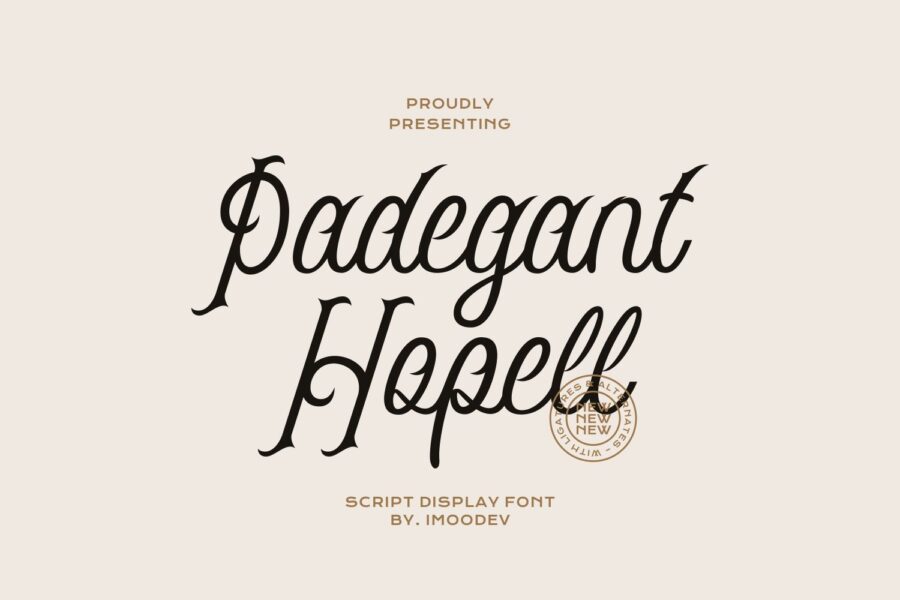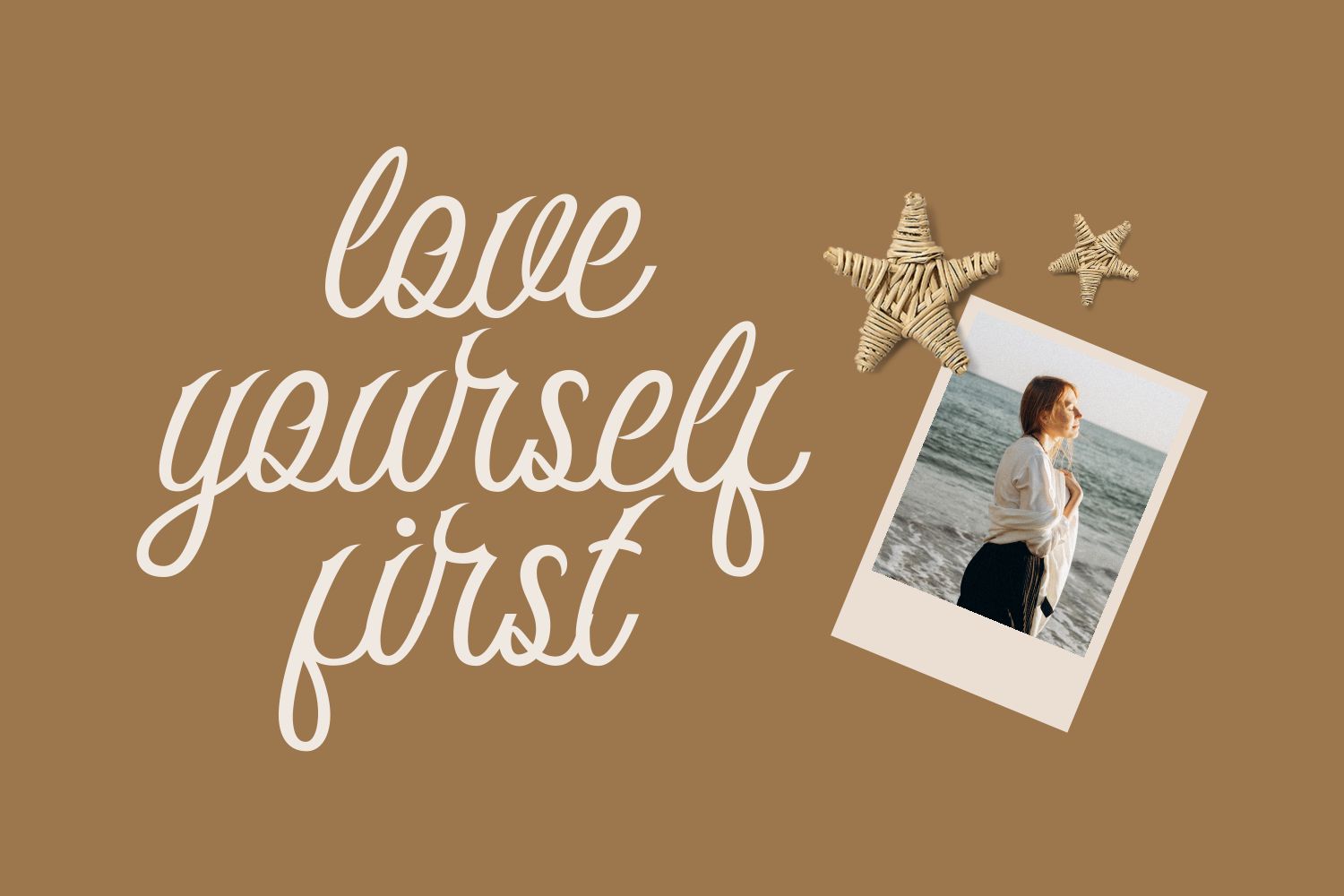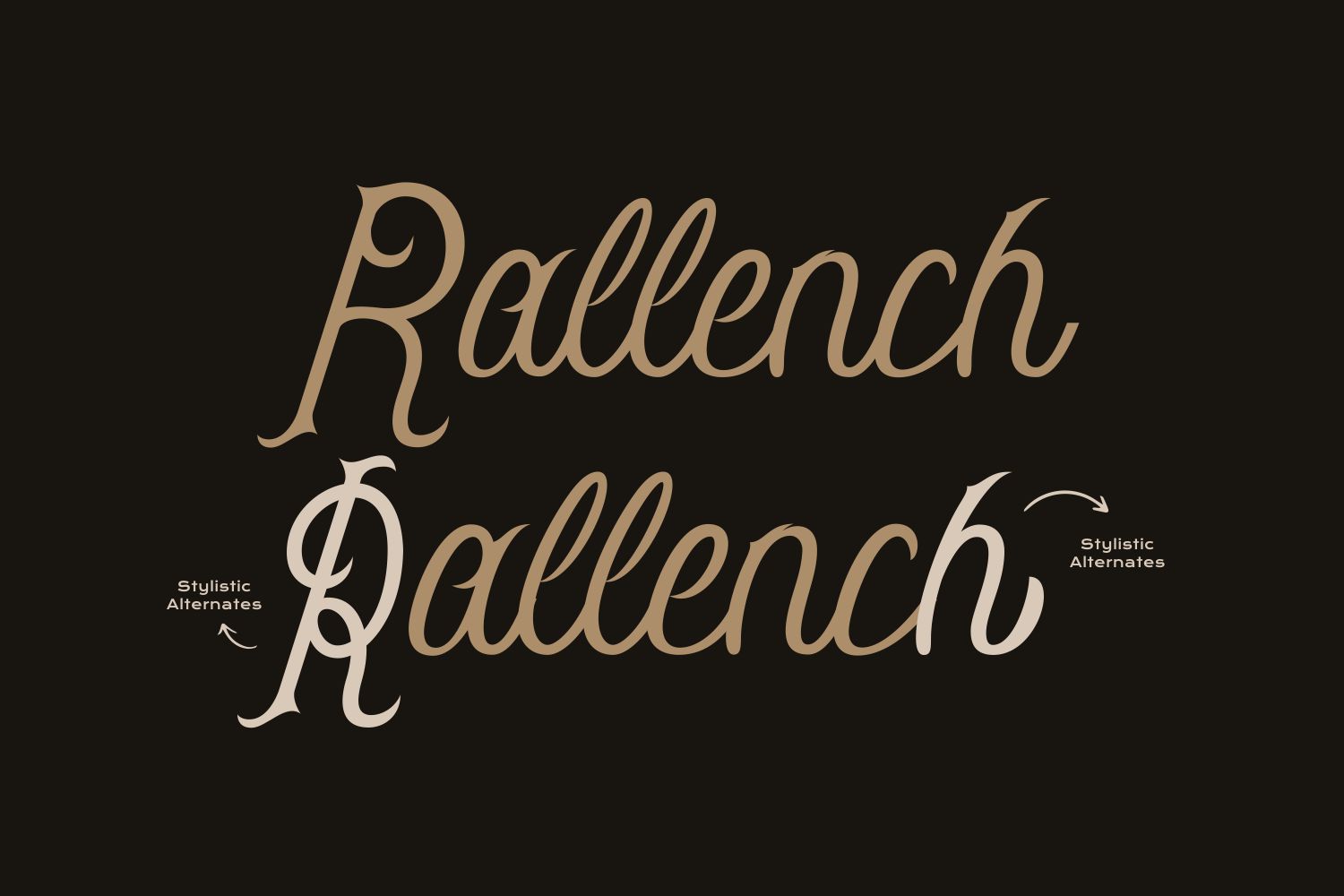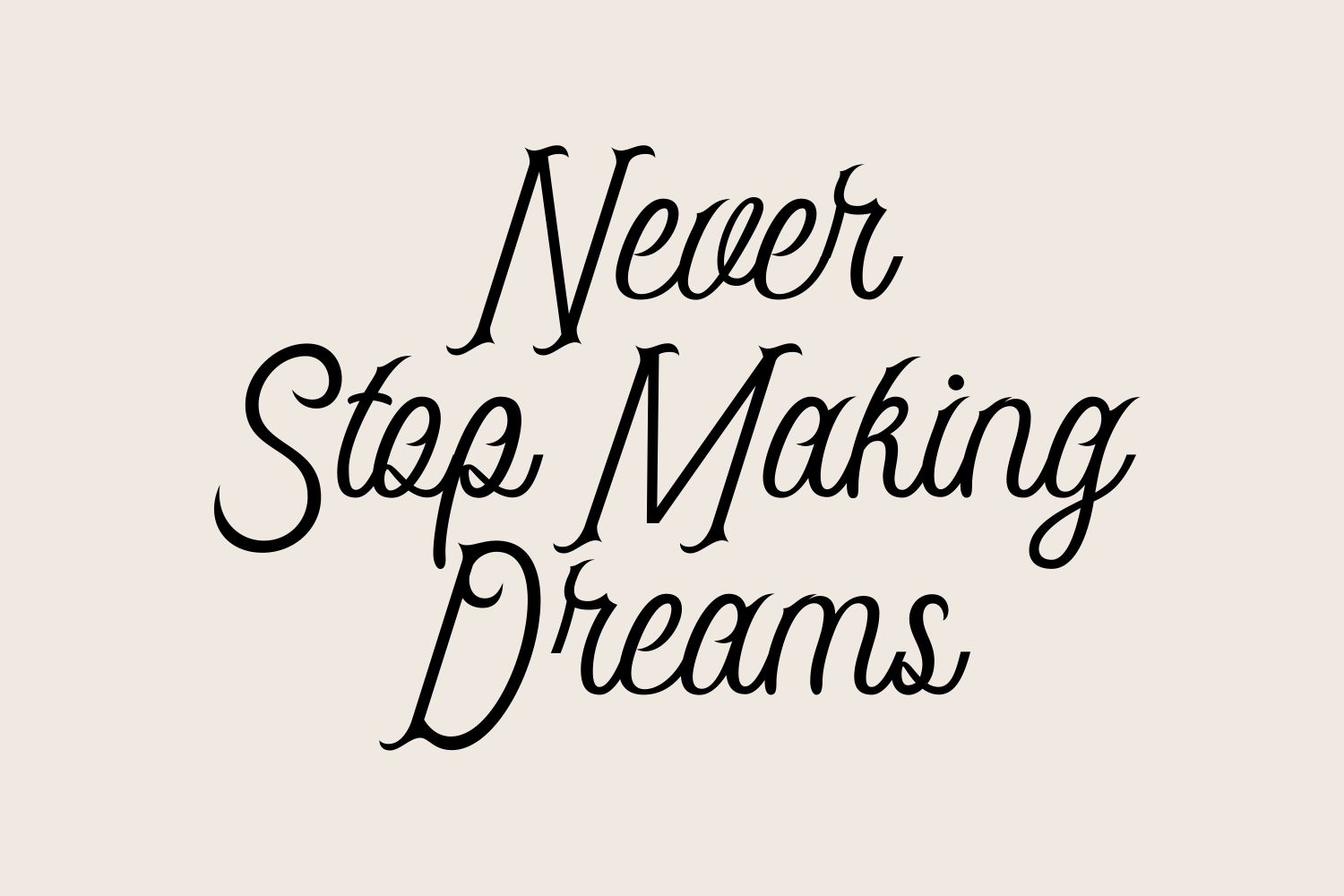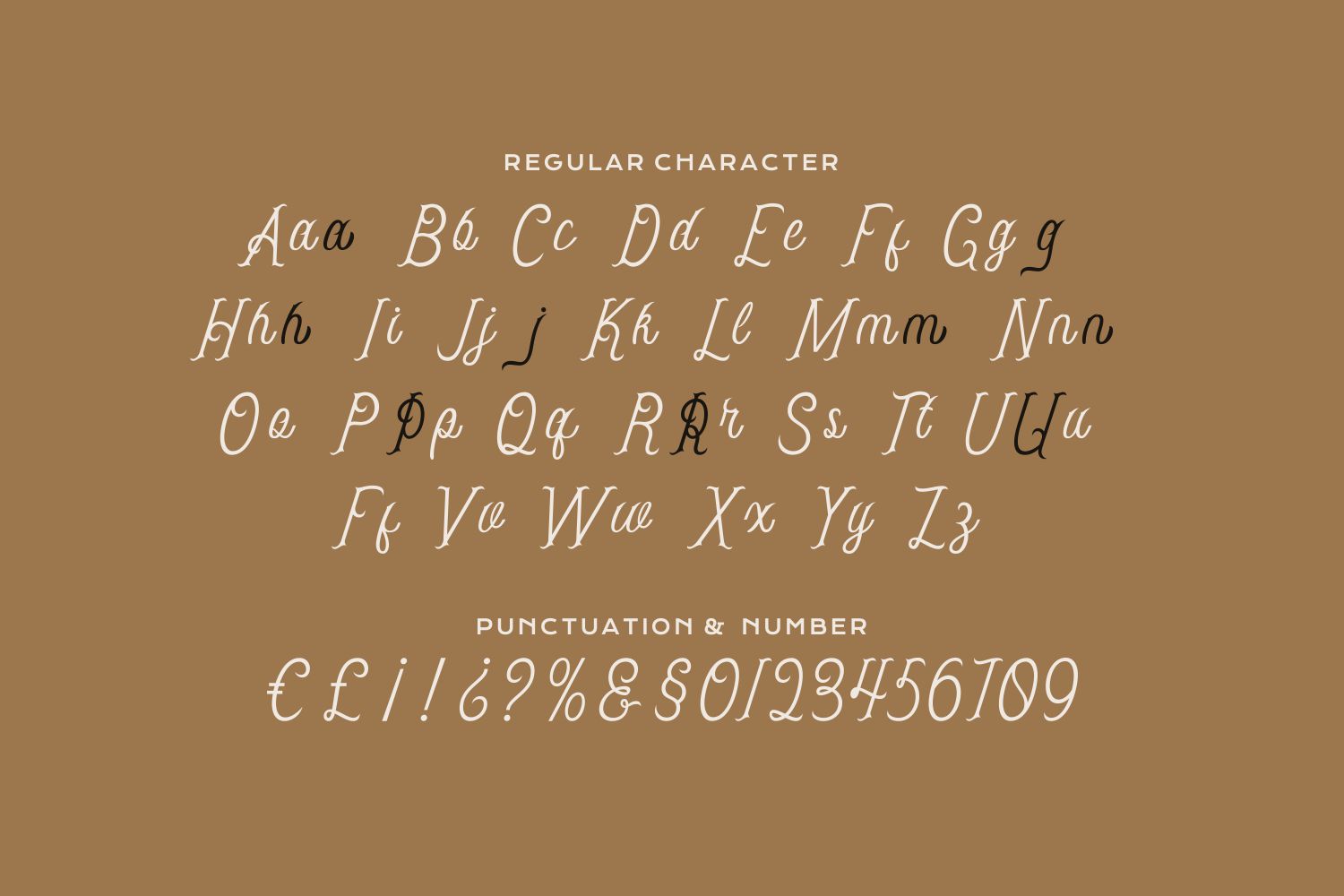
Padegant Hopell
Padegant Hopell is a graceful script display font that combines elegance and charm with flowing letterforms. Its delicate strokes and smooth curves bring a handwritten feel that is both stylish and refined, making it perfect for projects that require a touch of sophistication. Whether used for quotes, invitations, or branding, Padegant Hopell delivers a timeless beauty that enhances your design.
With additional stylistic alternates and ligatures, Padegant Hopell offers creative flexibility to craft unique typography compositions. It works wonderfully across logos, packaging, wedding stationery, social media graphics, and more. Ensuring your work stands out with elegance and personality.